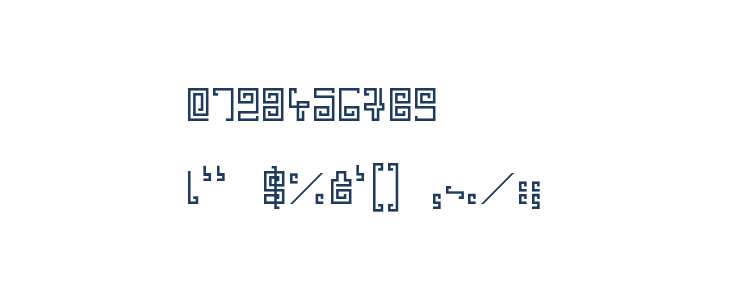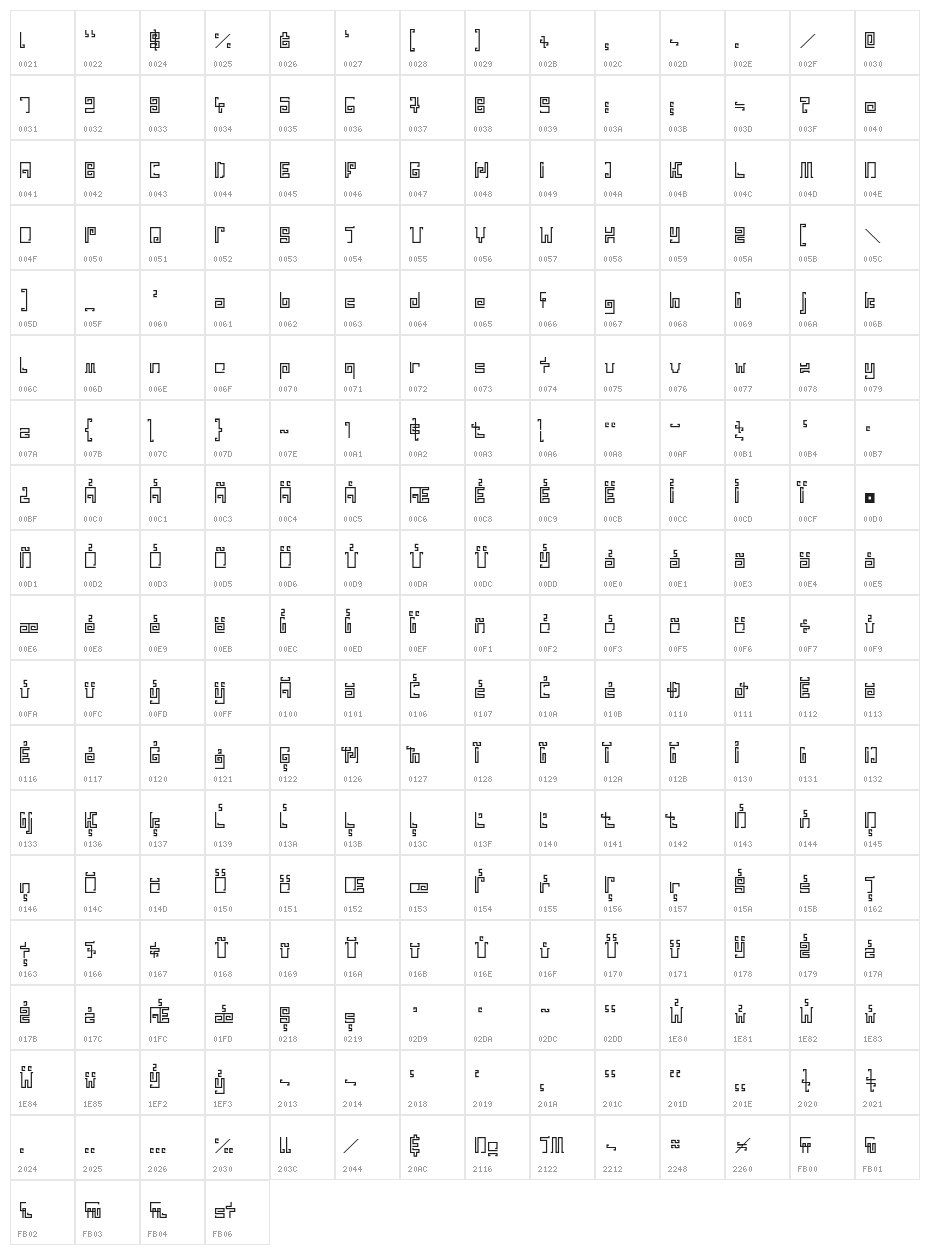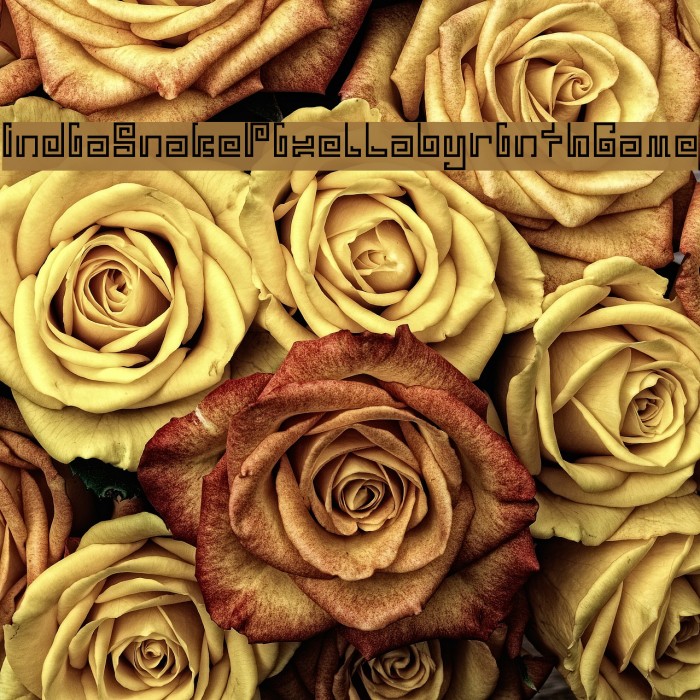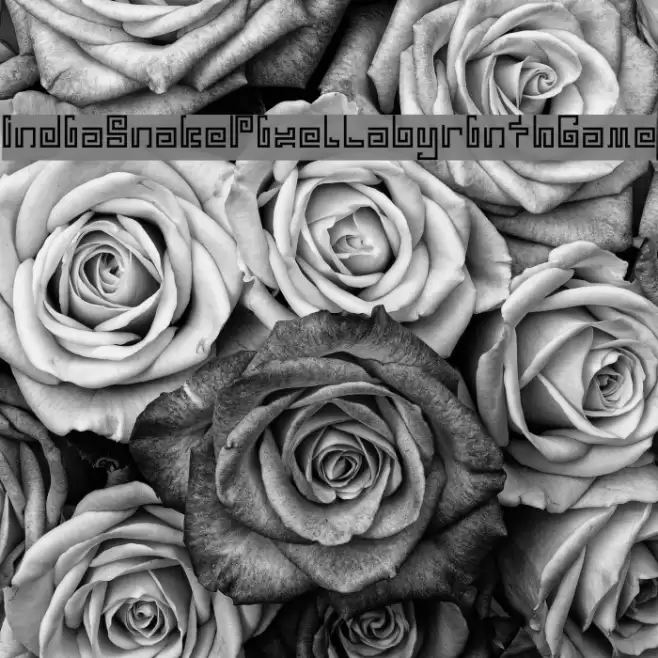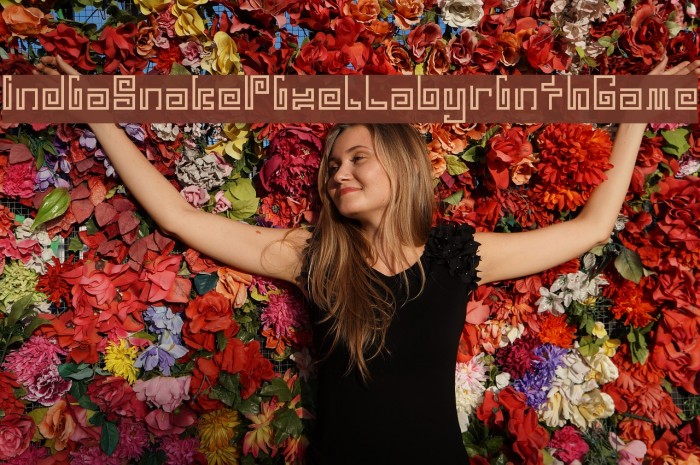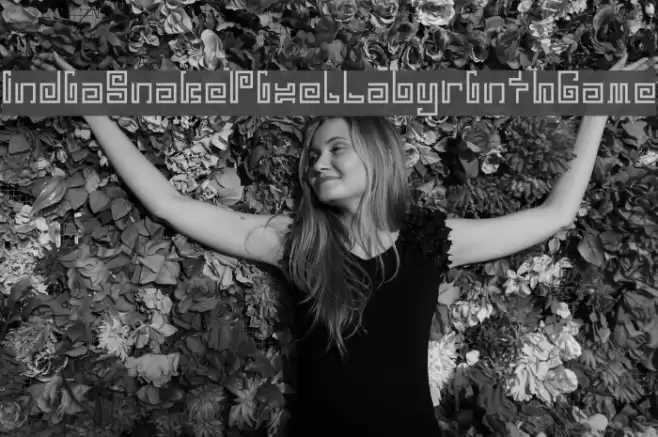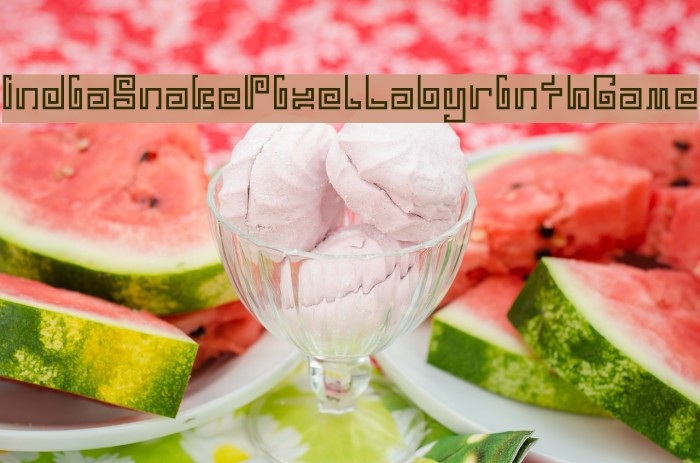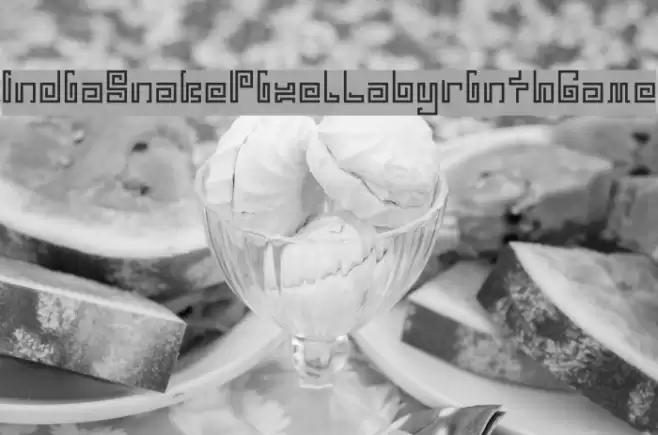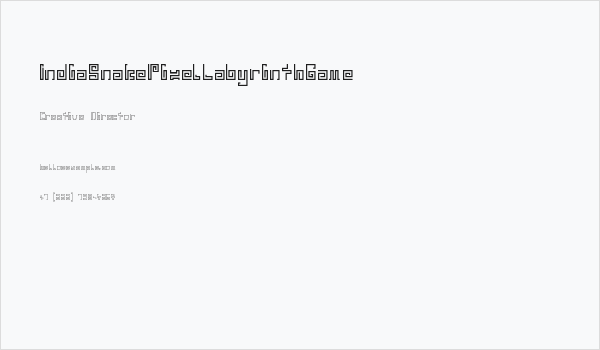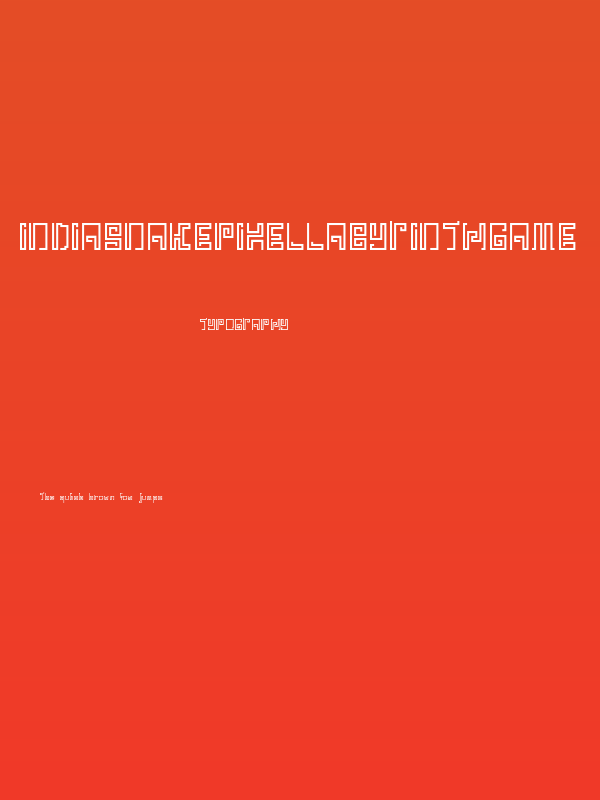
IndiaSnakePixelLabyrinthGame Font
IndiaSnakePixelLabyrinthGame Description
This font features a unique, labyrinthine design with a pixelated aesthetic. Each character is composed of straight lines and right angles, creating a maze-like appearance. The uppercase and lowercase letters maintain a consistent geometric style, with a uniform stroke width that adds to its digital, retro feel. The numbers and special characters follow the same design principles, ensuring a cohesive look across all glyphs. This font is reminiscent of early video game graphics, making it ideal for projects that aim to evoke nostalgia or a tech-inspired theme.
| Proposed Projects | Ideal for video game design, tech-themed posters, retro digital art, and branding for tech startups. |